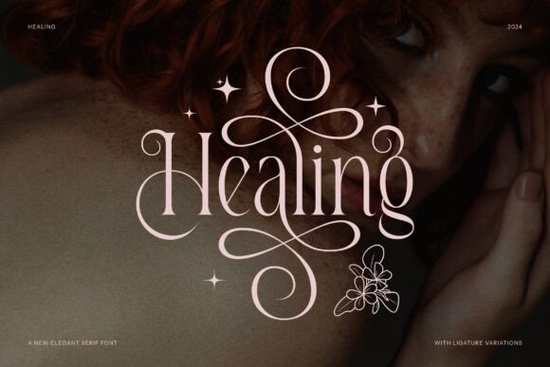
If you're looking for a clean, graceful serif font that works well for wellness branding, mindful product labels, or elegant printables like meditation guides, self-care journals, or yoga studio materials the Healing Font is worth considering. It’s an elegant serif typeface designed with subtle minimalism in mind, drawing quiet confidence from the clarity of modern logo typography. You’ll find it especially useful if your projects lean toward calm, intention, and refined simplicity not flashy or loud, but thoughtfully composed.
What kind of projects does Healing Font suit best?
This font shines where tone matters as much as legibility. Think: packaging for herbal teas, boutique skincare labels, printable affirmation cards, digital planners focused on mental wellness, or even small-batch candle brand identities. Its letterforms have gentle contrast and open counters making it highly readable at smaller sizes, whether printed on kraft paper or displayed on a tablet. Because it’s a serif (not script or display), it avoids looking overly decorative while still feeling personal and intentional.
Designers working on Canva templates, Printful-ready designs, or Cricut cutting files often choose Healing Font when they need something that feels grounded not trendy, not dated, but quietly confident. It pairs well with soft color palettes and natural textures, which makes it a favorite among crafters building cohesive brand kits for Etsy shops or local wellness studios.
How does it compare to other elegant serifs on Creative Fabrica?
Like Orvella Font, Healing Font favors clean lines and balanced spacing but Orvella leans slightly more formal, with stronger calligraphic influence. If you’re designing wedding stationery or luxury beauty packaging, Vogue Font might offer sharper sophistication, while Healing Font keeps things softer and more approachable.
For those who appreciate structure with warmth, Marquis delivers bolder contrast and a more architectural rhythm great for headlines that need presence. Healing Font, by contrast, excels in body text and mid-weight applications where subtlety supports message over emphasis.
You’ll also notice differences in x-height and spacing versus Brelist (which has a friendlier, almost handwritten flow) or Fresh Mango (more playful and rounded). Healing Font sits in a thoughtful middle ground: serene but not sleepy, structured but not stiff.
Where can you use Healing Font right away?
- Print-on-demand products: Use it on mugs, tote bags, or notebooks aimed at mindfulness audiences its readability holds up well even on curved surfaces or textured fabrics.
- Digital templates: Works cleanly in Notion dashboards, PDF planners, or Canva social posts especially when paired with neutral sans-serif companions like Inter or Lato for contrast.
- Crafting & cut files: The clean outlines convert reliably for vinyl cutting or laser engraving, making it practical for wooden affirmation signs or embroidered hoop art.
- Small business branding: Ideal for therapists, holistic practitioners, or apothecaries who want typography that reflects care without cliché no lotus symbols or overly stylized glyphs needed.
It’s not a “one-size-fits-all” font and that’s part of its strength. Healing Font doesn’t try to do everything. Instead, it fills a specific niche: calm elegance for purpose-driven design.
- ✅ You need a serif font that reads clearly at small sizes and feels calming not clinical or cold.
- ✅ Your project centers around wellness, self-care, nature, or slow-living themes.
- ✅ You’re comfortable pairing it with a simple sans-serif for hierarchy (e.g., headings in Healing Font, body in a neutral sans).
- ✅ You’ve reviewed the license to confirm it covers your intended use especially if selling POD items or editable design files.